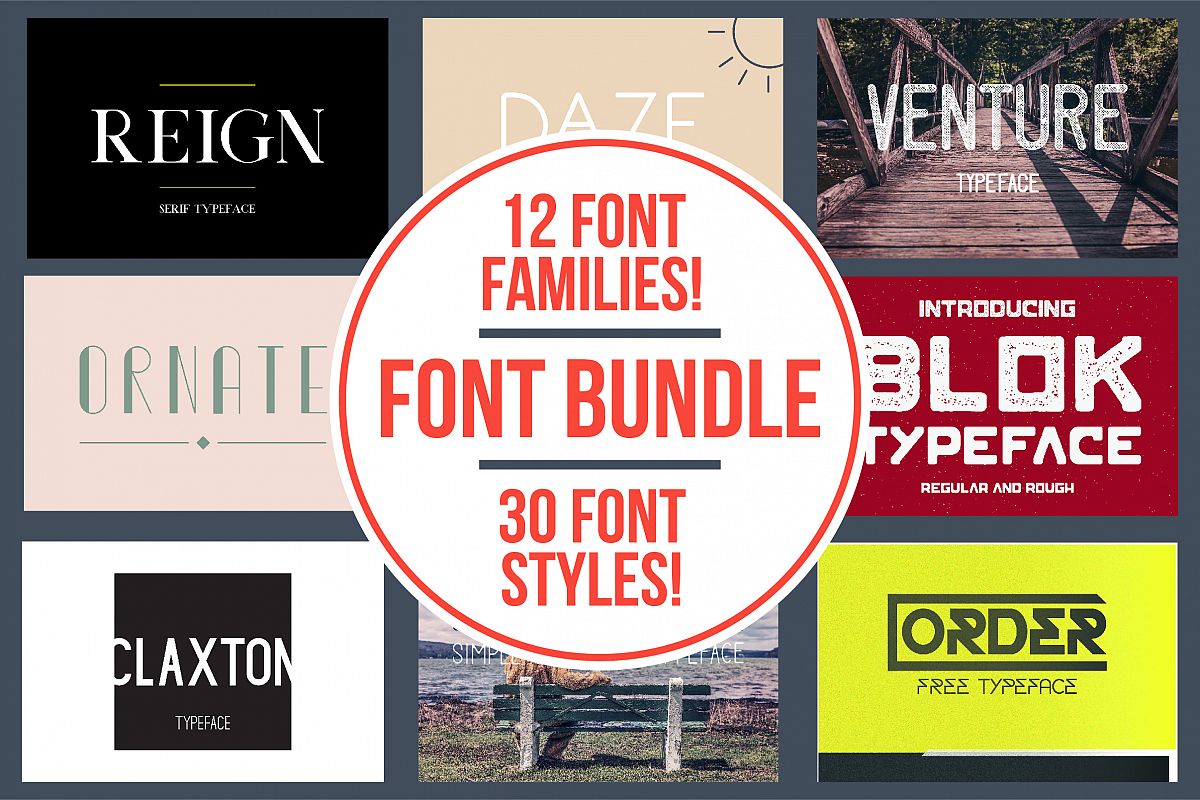
Typeface Bundle
This bundle has a collection of my most popular typefaces i have designed so far, at a small fraction of the price. It includes 12 unique typeface styles and 30 different font files.
Venture - Vintage style printed typeface. All caps, comes in 3 variations, regular, eroded and printed.
Order - Geometric shapes based typeface. All caps, comes with 4 variations, regular, outline, light and rounded.
Daybreak - Simplistic typeface. All caps, comes with 3 variations, regular, light and bold.
Blok - Typeface for impact. All caps, comes with 4 variations, regular, rough, alt and lined.
Highrise - Tall structured typeface. Both upper and lower case, comes with 3 variations, regular, light and bold.
Reign is a sophisticated & simple serif typeface. Works great for logos & titles on a large or small scale. Pairs great with simple sans serif fonts. Includes regular and stencil
Daze is a quaint and a laid back typeface, perfect for simplistic packaging and branding design.
Claxton is a stylish and sophisticated typeface great for simplistic up-market branding.
Fiore is a quaint elegant typeface. Works great for wedding stationary and monogram logos, and pairs well with simple sans serif typefaces.
Kodek is a bold all caps typeface that works great for headings and signage. With layering options to bring your design to the forefront!